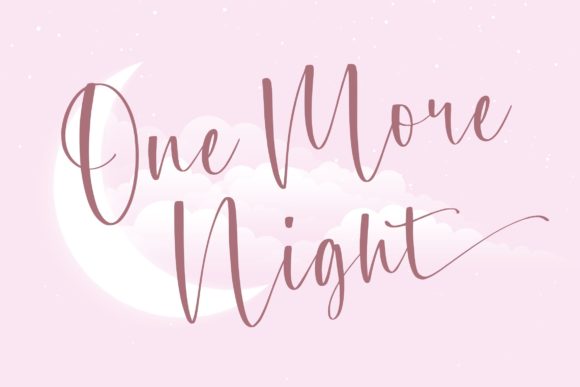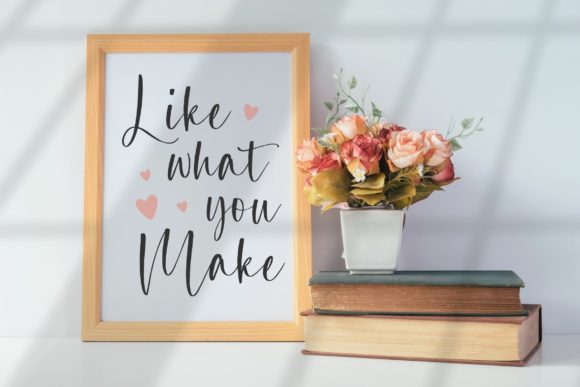
Rosegrace Font
db-ku.com - Script & Handwritten -- Rosegrace feels equally charming and elegant. It looks stunning on wedding invitations, thank you cards, quotes, greeting cards, logos, business cards and every other design which needs a customized touch.